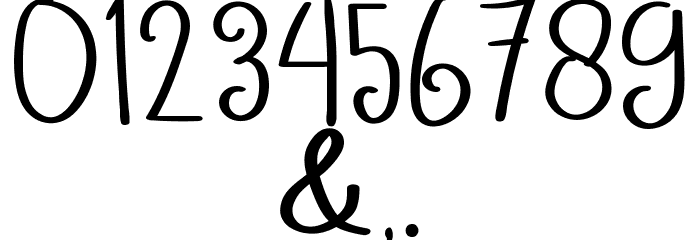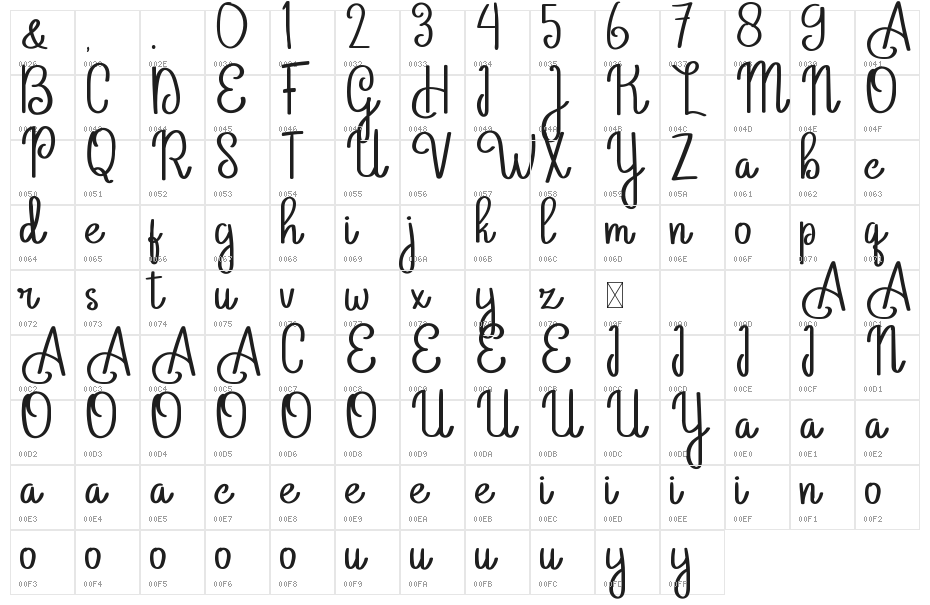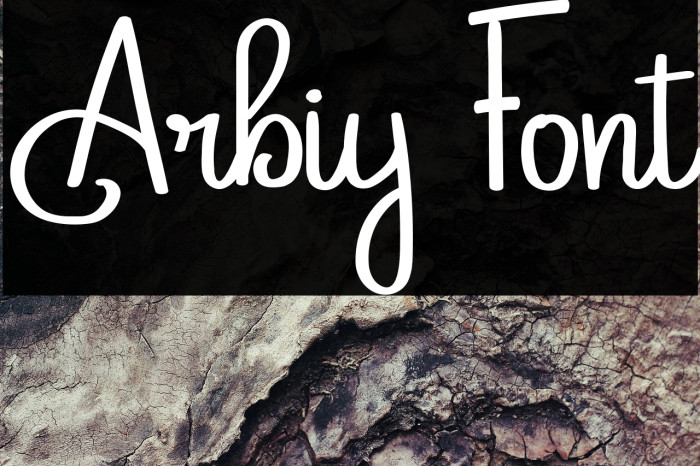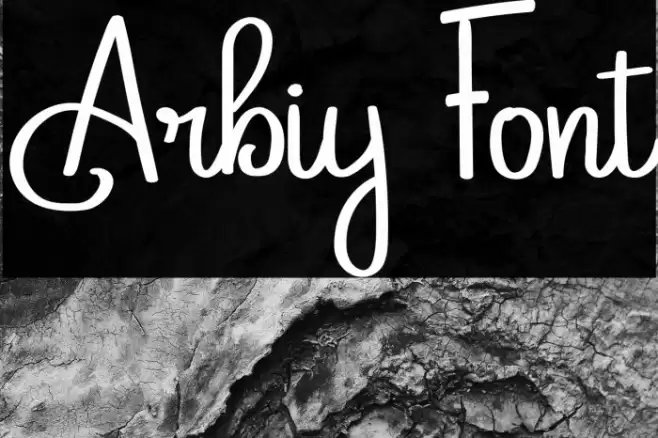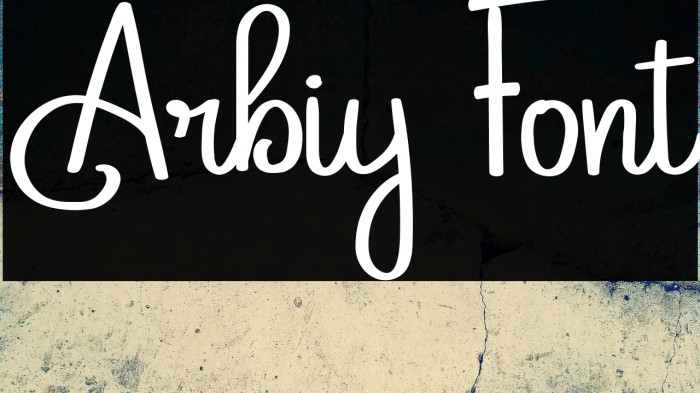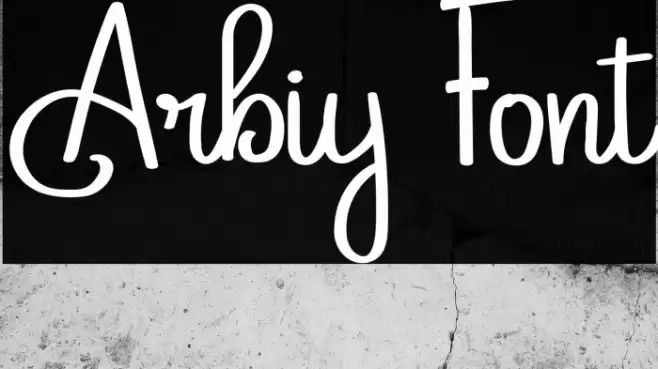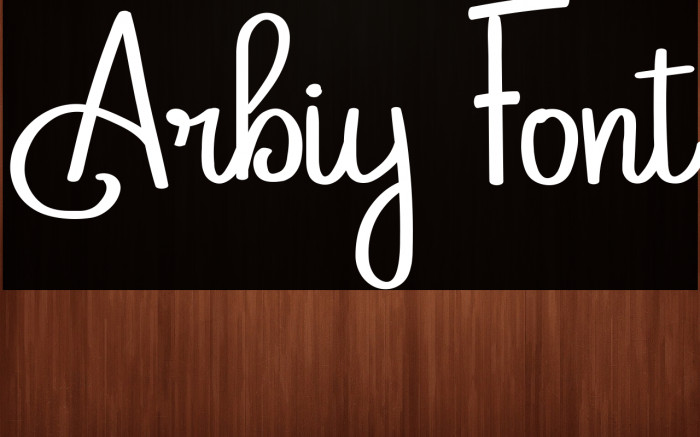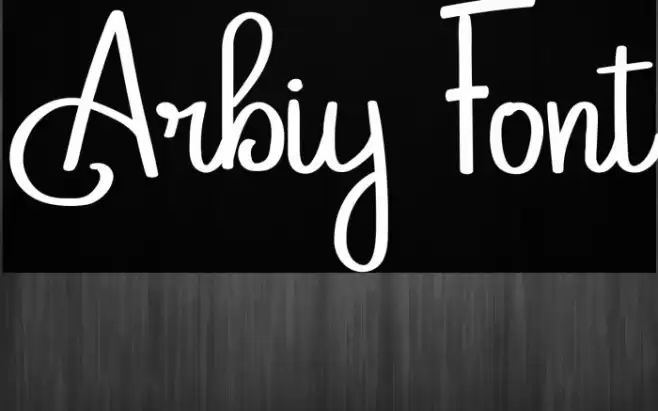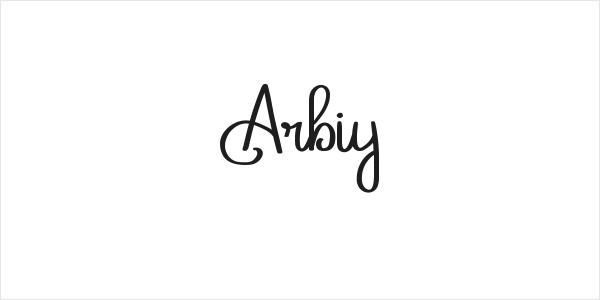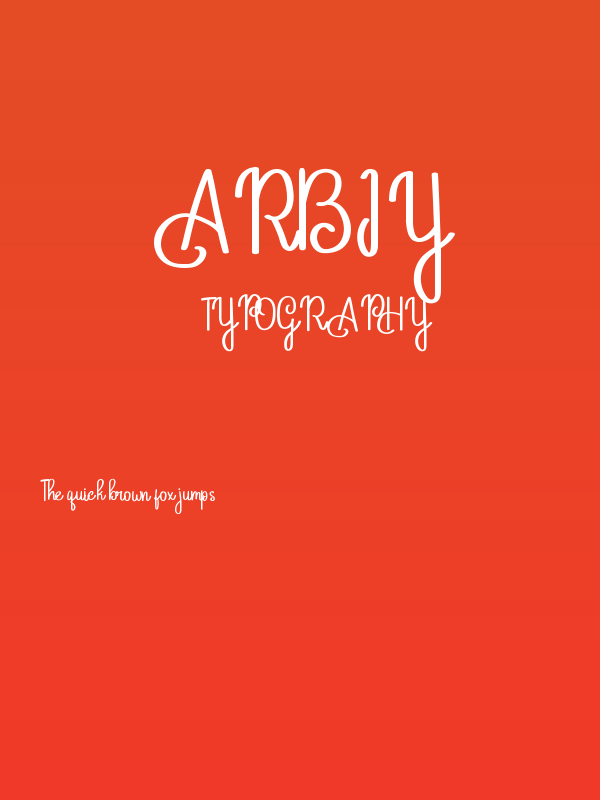
Arbiy Font
Arbiy Description
This font features a playful and whimsical script style, characterized by its flowing, interconnected letters and rounded forms. The uppercase letters are slightly more structured, while the lowercase letters exhibit a more casual, handwritten appearance. The numerals and special characters maintain the same playful aesthetic, making them cohesive with the alphabet. The overall design is friendly and approachable, with a touch of elegance due to the smooth curves and loops. This font is versatile, suitable for a variety of creative projects that require a personal and inviting touch.
| Proposed Projects | Ideal for greeting cards, invitations, personal branding, and creative social media graphics. |